black estate
While browsing through Greg Storey’s always interesting weblog, I came across an excellent new website for Black Estate Vineyard, a winery in New Zealand.
The entire website is displayed in one long, easy to navigate page. The content is organized into a six column grid; although it is more staggered than organized—but that is why this site is so much fun!
Although it is a very long page, finding your way through the site is not difficult at all. The navigation occupies the left-most column, however it stays in place no matter how far down a user is scrolled. When menu items are clicked, the page automatically scrolls in a quick but smooth motion, which is a nice touch that’s been seen somewhat recently on other sites, but works exceptionally well here.
The entire page is set to a dark gray background; however, the readability is not affected due to the wonderful type and color treatment. Starting at the top, visitors are greeted with a big, beautiful title set in Adobe Jenson, along with a photo of the wonderfully designed bottle on the right.
Each section of the website is dominated by large titles, also set in Adobe Jenson, through the use of CSS image replacement. The rest of the copy is set in either Times New Roman or Georgia, which once gain goes to show how accessible and elegant Times New Roman can be when used properly.
Moving down the page, bright and colorful photos are intertwined with each section. This is done superbly. The photos contrast nicely with the light text and the dark background, which makes for a nice change of pace while staring at a mostly dark design. Also notice how most of the photos have a green and yellow color to them. This reinforces a strong color scheme, but is also a sign of very good art direction. Too many random colors, especially in photographs, can be distracting—which this design definitely avoids.
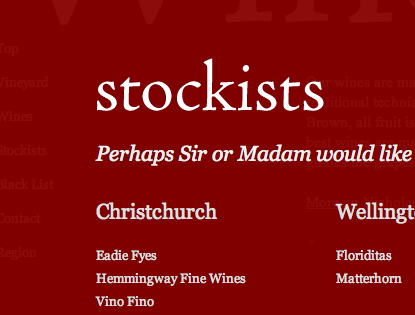
Speaking of color, there is an additional color thrown in occasionally throughout the site: dark red. I can’t get over how perfect this color is for the design. It is used sparsely, mainly for a few small headings, but most notably is used as the background color for the pop-up section of the site called “Stockists.” The white text on an ever-so-slightly transparent dark red, all on top of dark gray, is lovely. Once again, the text is still readable despite the fact that white text on a red background typically brings a big strain to the eyes.
What I am most impressed with is the use of the grid. Text and photos are staggered throughout the entire site, but the placement of the content is so unconventional and unpredictable that one almost forgets that their is some sort of underlying structure. Pull quotes and photos of all sizes are located all over, whereas the actual copy is usually located in the second, third, fourth, and fifth columns. Whoever designed the site did an excellent job of designing around the content rather than copying and pasting the copy into a pre-defined column.
Criticisms
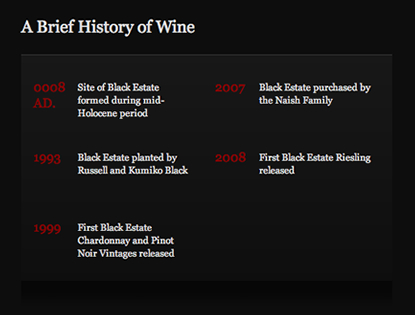
If anything, I’d like to see the wine bottles throughout the page photographed under better light. I’m also not a fan of the random gradient found in the section called “A Brief History of Wine.” The gradient doesn’t fit into the minimal design at all. Other than these few qualms, I don’t have anything negative to add.
Conclusion
The Black Estate Vineyard website is unique, interesting and beautiful. It’s certainly unlike anything I’ve seen in quite a long time. What do you think?
I agree, interesting design to say the least. It is very unique in structure. Nice design overall I think.
The use of the serif in such a bold manner is beautiful. Serifs are often overlooked and underused but this has been used extensively and exquisitely throughout the site.
I’m in love with the gigantic instances of Jensen, those titles just scream awesome to me in conjunction with the layout. That said, I think the drop caps could be sized a little better to follow the baseline, but overall it’s a beautiful site.
Beautiful. I love how the map at the bottom is incorporated into the background. So cool.
@Kyle
Yeah, I noticed an issue with the drop caps, too. It seems to line up to the baseline just fine, but the problem is the space below it. Weird.
@Evan
I completely forgot to mention the map in the review! It’s done really, really well.
Beautiful site. I disagree with the criticism on the photographs of the wine bottles. I think it is an artistic choice rather than an ignorance that they were photographed in low light. I think the effect sets off the rest of the design quite nicely. I agree one hundred-fold about the random gradient. Too often in minimalistic design is the style momentarily forgotten and something is added that clashes with the rest of the page.
I found the Black Estate site while reading about site designs using the 960.gs Grid System (ny Nathan Smith). Very well done indeed. This is a superb single page implementation of this css framework. Does any one know the name of the designer or the design firm?